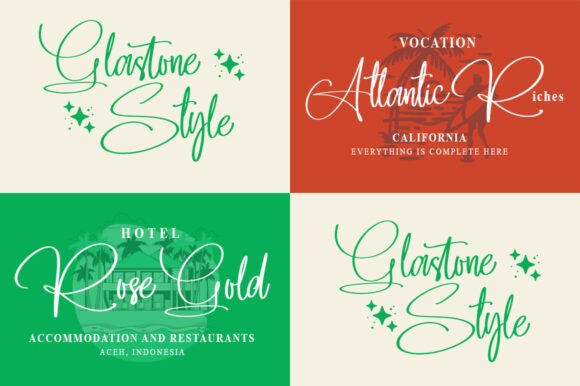
Glastone Style Font: Elevate Your Design with Elegance and Artistry
In the realm of typography, a font can make all the difference in the visual impact of a design. Introducing Glastone Style, a meticulously constructed handwritten font that blends artistry and intricacy to create a striking impression. This font serves as a canvas for your creativity, lending vitality to alphabets, bringing an elegant touch to invitations, infusing charm into food packaging, reinventing titles, and so much more. With Glastone Style, you can leave your unique imprint on any design project.
The Art of Handwritten Typography
Glastone Style is a masterpiece of handwritten typography, boasting an intricate design that exudes elegance and sophistication. Each letter is carefully crafted to showcase a unique blend of artistry and precision, making it perfect for designers seeking to add a personal touch to their work. The font’s flowing lines and curves create a sense of movement, drawing the viewer’s eye through the text and creating a lasting impression.
Versatility at Its Finest
One of the standout features of Glastone Style is its versatility. This font can be used in a wide range of design applications, from elegant invitations and event branding to food packaging and title design. Whether you’re looking to create a luxurious brand identity or simply want to add a touch of whimsy to your design, Glastone Style is the perfect choice.
Some potential uses for Glastone Style include:
- Elegant invitations and event branding
- Food packaging and label design
- Title design for books, magazines, and movies
- Logo design and brand identity
- Wedding stationery and decor
Key Features of Glastone Style
Glastone Style boasts a range of features that make it the perfect choice for designers seeking a high-quality handwritten font. Some of the key features include:
- Meticulously constructed lettering with intricate details
- Flowing lines and curves for a sense of movement
- Elegant and sophisticated design
- Versatile and adaptable for various design applications
- Perfect for designs requiring a personal touch
Why Choose Glastone Style?
With so many fonts available, why choose Glastone Style? Here are just a few reasons why this font stands out from the rest:
- Unique and distinctive design
- High-quality construction for clear and crisp lettering
- Easy to read and understand
- Scalable for use in various design applications
Tips for Using Glastone Style
To get the most out of Glastone Style, here are a few tips for using this beautiful font:
- Use it sparingly: Glastone Style is a statement font, so use it sparingly to make a lasting impression.
- Pair it with contrasting fonts: Pair Glastone Style with contrasting fonts to create visual interest and hierarchy.
- Experiment with colors: Glastone Style looks stunning in a range of colors, so don’t be afraid to experiment and find the perfect hue for your design.
- Pay attention to spacing: Make sure to leave enough space between letters and lines to create a clean and elegant design.
In conclusion, Glastone Style is a truly unique and exceptional handwritten font that can elevate any design project. With its intricate design, flowing lines, and elegant curves, this font is perfect for designers seeking to add a personal touch to their work. Whether you’re creating elegant invitations, food packaging, or title design, Glastone Style is the perfect choice. So why wait? Download Glastone Style today and leave your unique imprint on the world of design!